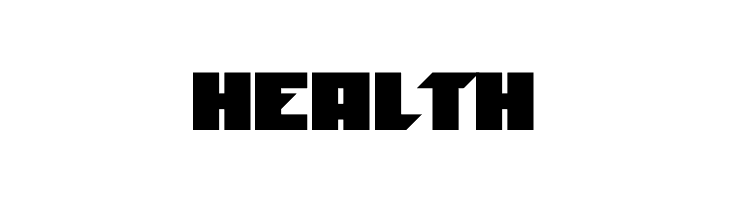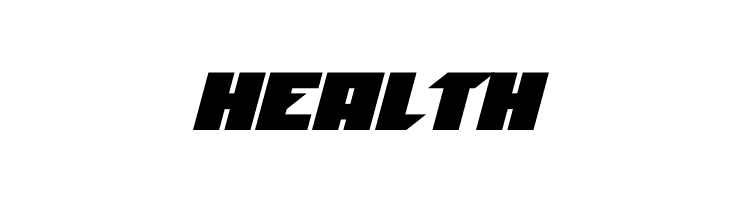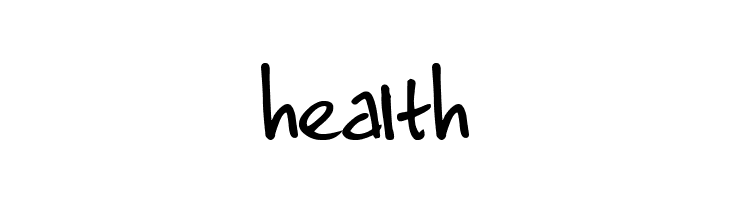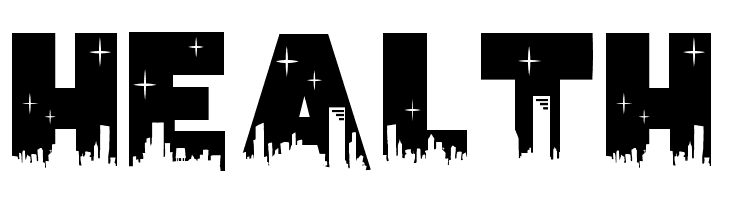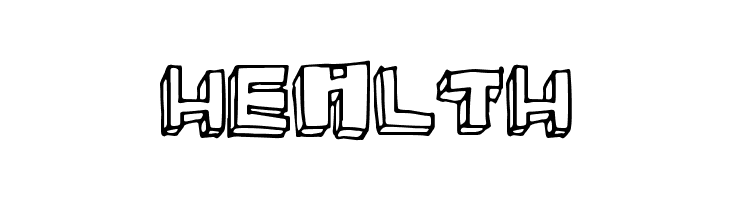
A geometric, condensed font with uniform stroke widths and a modern, architectural style.
A bold, italicized font with a 3D outline and shadow effect.
A bold, playful, and cartoonish font with a three-dimensional, hand-drawn style.
A bold, cityscape-themed font with high contrast and dramatic style.
A modern, geometric font with clean lines and a thin weight.
A playful, casual handwritten font with irregular strokes and a friendly appearance.
A bold, cursive script font with dynamic strokes and a handwritten feel.
A bold, angular, and futuristic italic font with a dynamic, geometric design.